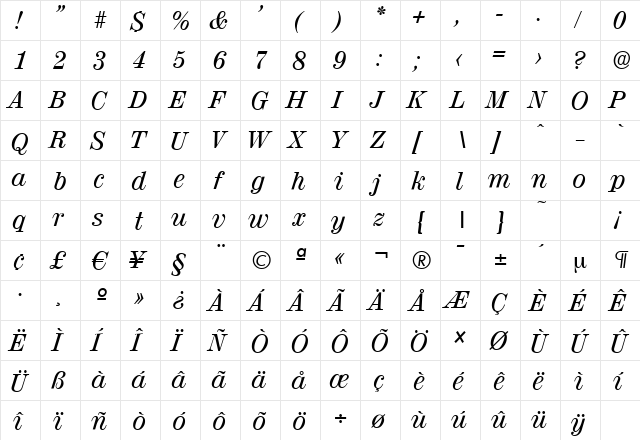
ValenciaSerial-Medium Italic
Design Context for ValenciaSerial-Medium Typeface
ValenciaSerial-Medium is a composed and adaptable typeface that performs quietly and consistently across a wide range of design contexts. The dynamic lean of this cut emphasises speed and emphasis in any layout.
Pro Tip: Use ValenciaSerial-Medium for emphasis, pull quotes, and subheadings where its slanted energy can add rhythm to the layout.